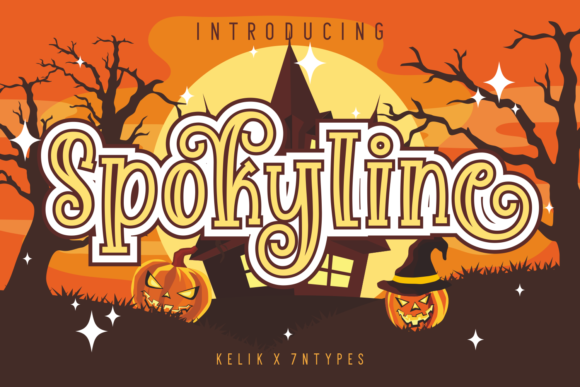
Welcome to the world of Spokyline Font, a captivating display font that will inject an irresistible dose of joy and playfulness into your creative endeavors. With its unique quirky charm, Spokyline is guaranteed to transform your designs into vibrant expressions of your imagination.
Immerse yourself in the beauty of Spokyline's playful style, meticulously crafted to bring a smile to your face and captivate the hearts of your audience. Whether you're designing enchanting stationary art, eye-catching social media posts, or any other creative project, Spokyline will effortlessly elevate your work to new heights of visual delight.
Unleash the boundless creativity within you as you explore the endless possibilities of Spokyline. Its versatile nature allows you to effortlessly adapt it to a multitude of design projects, effortlessly adding a touch of whimsy and charm to every element. Let your imagination run wild as you create stunning logos, vibrant posters, enchanting book covers, and captivating website designs that leave a lasting impression.
With Spokyline by your side, you'll embark on a creative journey like never before. Its user-friendly PUA encoding ensures seamless access to all of the glyphs and swashes, empowering you to effortlessly incorporate intricate details and flourishes into your designs. The possibilities are limitless, and the joy of creation is yours to embrace.
So, dive into the world of Spokyline Font today and unlock a treasure trove of creative possibilities. Let its playful spirit ignite your passion and transform your designs into masterpieces that radiate happiness and leave your audience spellbound. Embrace the magic of Spokyline and embark on an artistic adventure that will redefine your creative horizons.